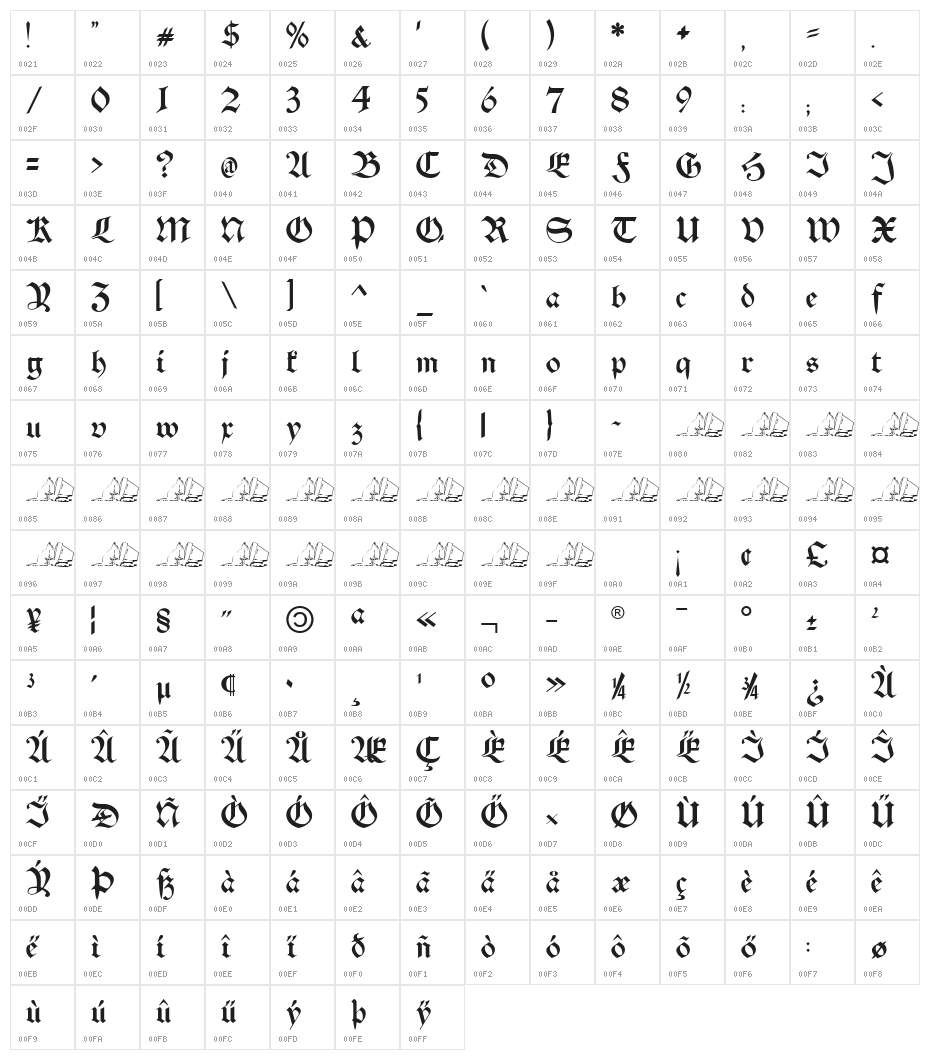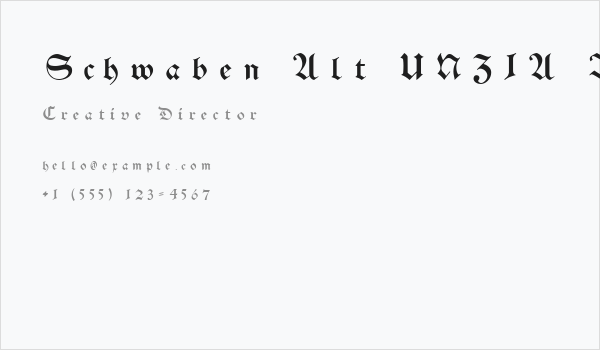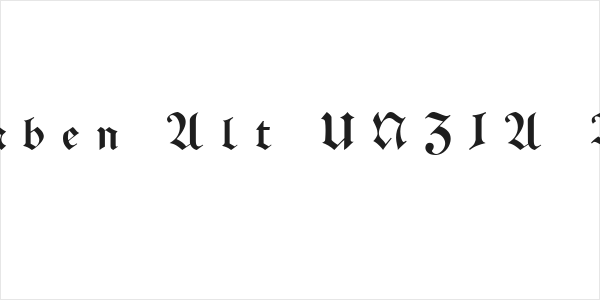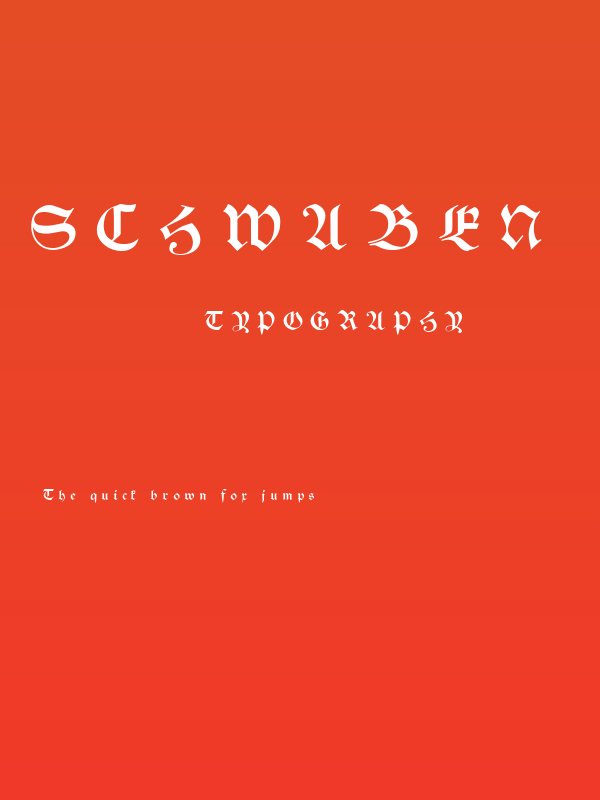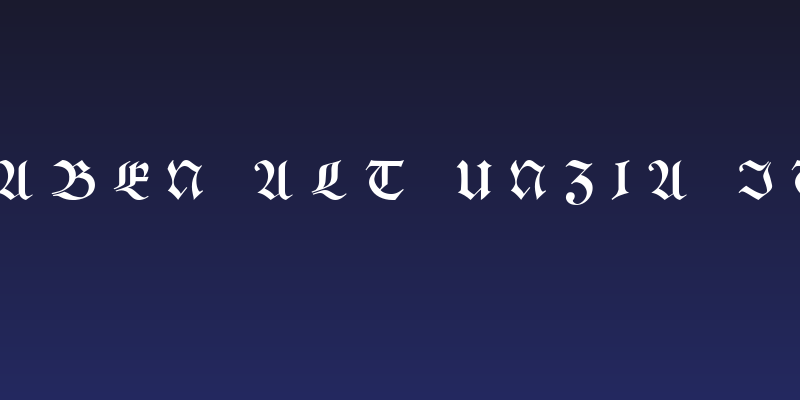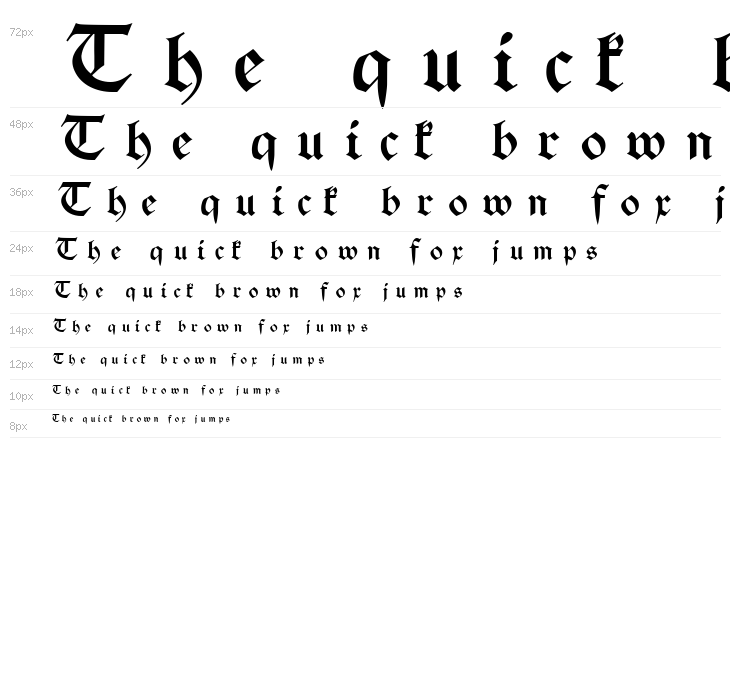
Schwaben Alt UNZ1A Italic Font
Schwaben Alt UNZ1A Italic Description
This font exudes a classic and historical aura, reminiscent of traditional blackletter styles. The characters are intricately designed with sharp, angular strokes and elaborate curves, giving it a distinct medieval appearance. The uppercase letters are bold and commanding, while the lowercase letters maintain a consistent flow with their ornate detailing. Numbers and special characters follow the same stylistic cues, ensuring uniformity across the typeface. This font is perfect for projects that require a touch of elegance and historical depth, such as invitations, certificates, or branding for luxury products.
| Use Case | Headlines, Decorative text, Branding |
| Proposed Projects | Ideal for historical documents, wedding invitations, luxury branding, and decorative signage. |